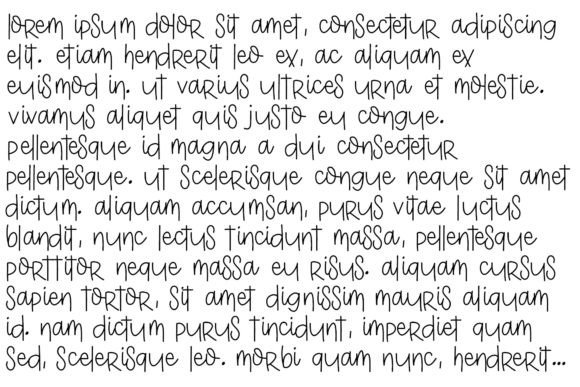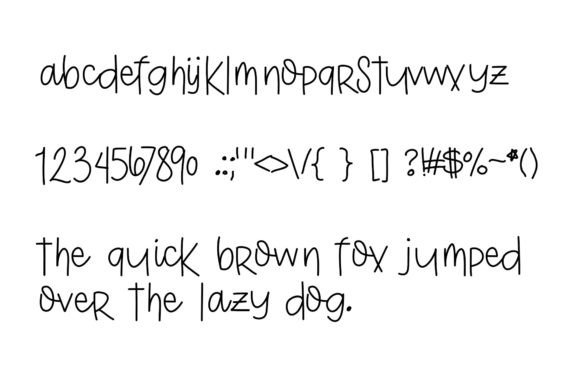
Drops Font: Adding a Bouncy Touch to Your Designs
Are you tired of using the same old fonts in your designs? Look no further than the Drops Font, a funky hand-drawn handwriting font that brings a natural mix of script and print letters to the table. With its monoscript style and bouncy feel, Drops is perfect for logo creation, poster design, and a wide range of other uses.
What is Drops Font?
Drops Font is a unique and creative font that combines the elegance of script letters with the simplicity of print letters. The result is a font that is both playful and sophisticated, making it ideal for designers and crafters looking to add a personal touch to their work.
One of the standout features of Drops Font is its monoscript style. Unlike traditional fonts, which feature varying letter widths, monoscript fonts feature letters that are all the same width. This creates a sense of uniformity and cohesion, making it perfect for designs where consistency is key.
Key Features of Drops Font
- Hand-drawn handwriting font: Drops Font features a natural, hand-drawn look that gives it a unique and personal feel.
- Monoscript style: The font’s monoscript style creates a sense of uniformity and cohesion, making it perfect for designs where consistency is key.
- Bouncy feel: The font’s bouncy feel adds a playful touch to any design, making it perfect for projects where you want to add some personality.
- Natural mix of script and print letters: The font’s natural mix of script and print letters creates a unique and interesting look that sets it apart from other fonts.
Uses for Drops Font
Drops Font is a versatile font that can be used for a wide range of design projects. Here are just a few ideas to get you started:
- Logo creation: The font’s unique and playful style makes it perfect for creating eye-catching logos that stand out from the crowd.
- Poster design: The font’s bouncy feel and natural mix of script and print letters make it perfect for creating posters that grab attention and convey a message.
- Social media graphics: The font’s playful style makes it perfect for creating social media graphics that stand out from the crowd and add a personal touch to your online presence.
- Branding and packaging: The font’s unique style makes it perfect for creating branding and packaging materials that reflect your brand’s personality and style.
Drops Font is a unique and creative font that adds a bouncy touch to any design. With its monoscript style, natural mix of script and print letters, and playful feel, it’s perfect for designers and crafters looking to add a personal touch to their work. Whether you’re creating a logo, poster, or social media graphic, Drops Font is a great choice for adding some personality and style to your design.